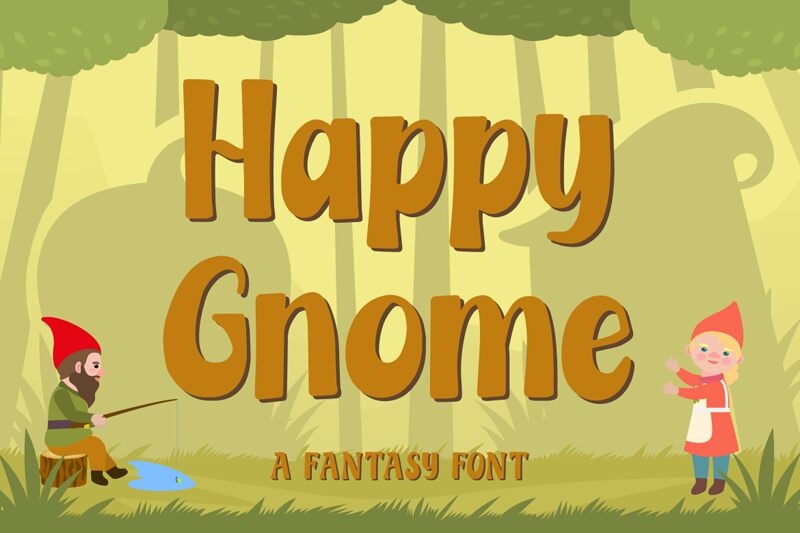
Happy Gnome is a bold display font designed by typefactory. Its fantasy cartoon style makes it the perfect choice for projects needing an imaginative, creative touch, such as children's books, game design and logo designs.
Thisfont will be the ideal choice for any children story book, or party design you wish to develop.
typefactory: Happy Gnome: 2021